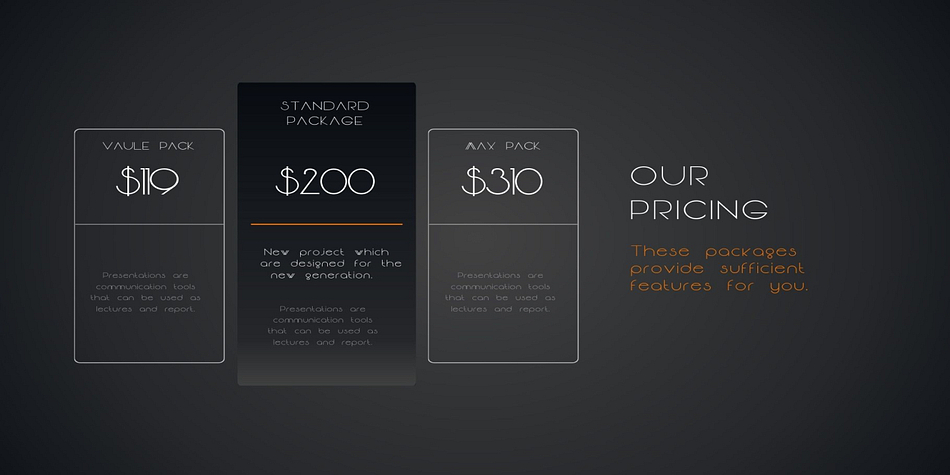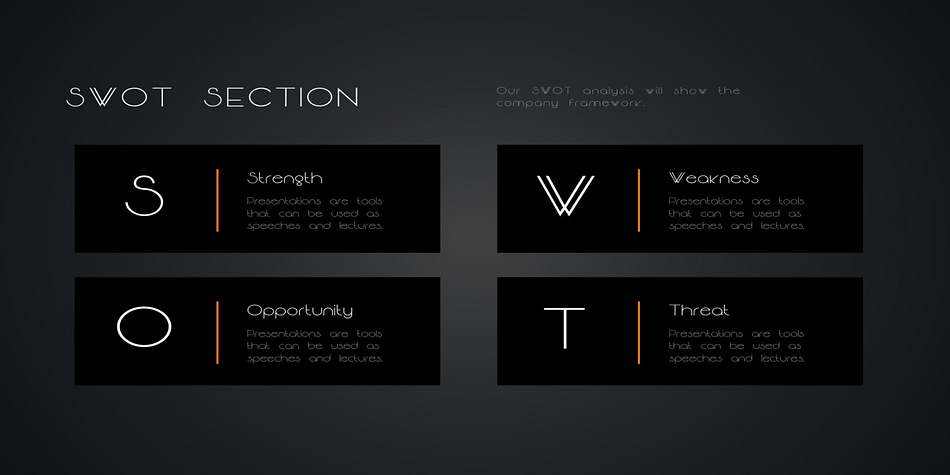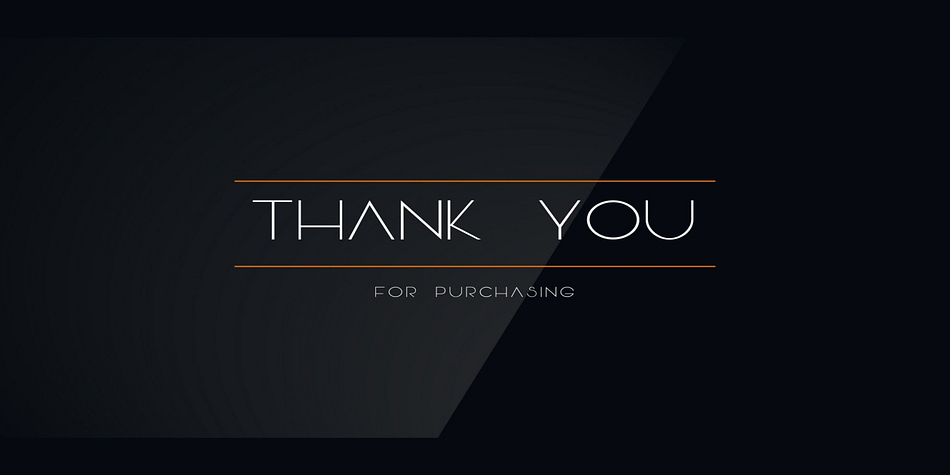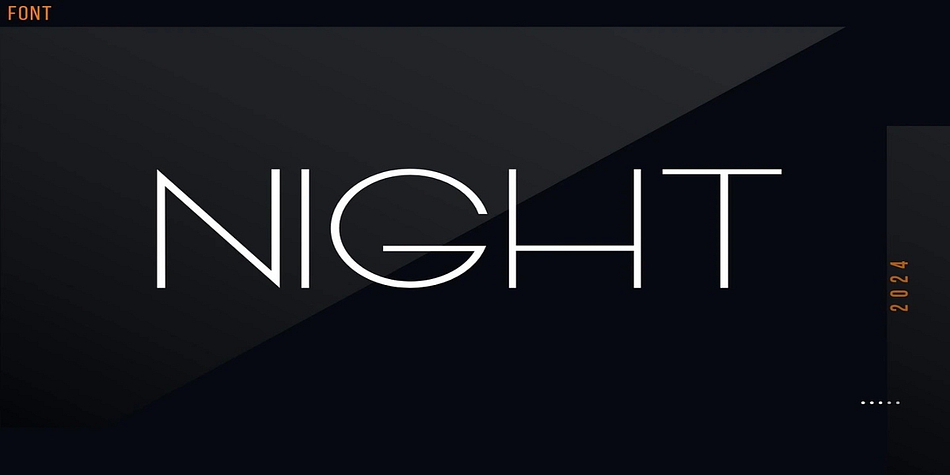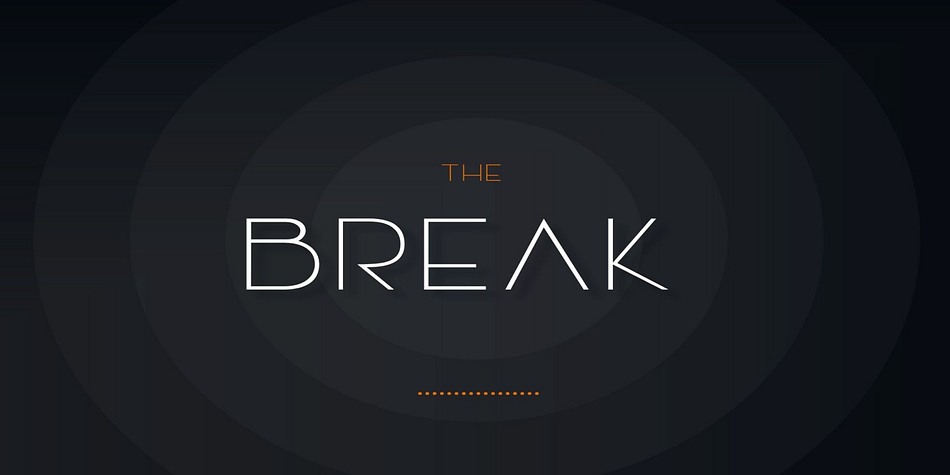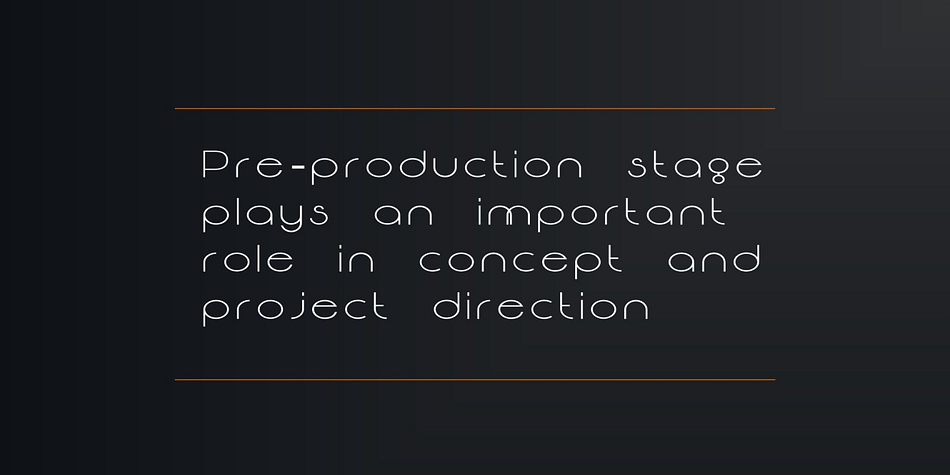
Night
Night is a retro font family published by Aditastudios.
Night is a simple sans serif font. It can easily be matched to an incredibly large set of projects, so add it to your creative ideas and notice how it makes them stand out!